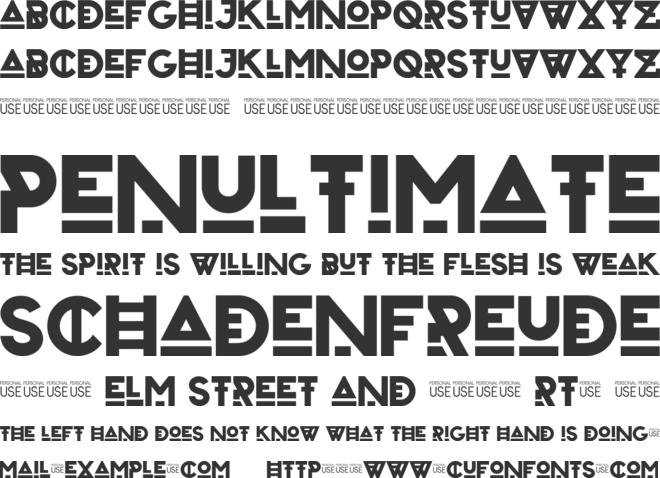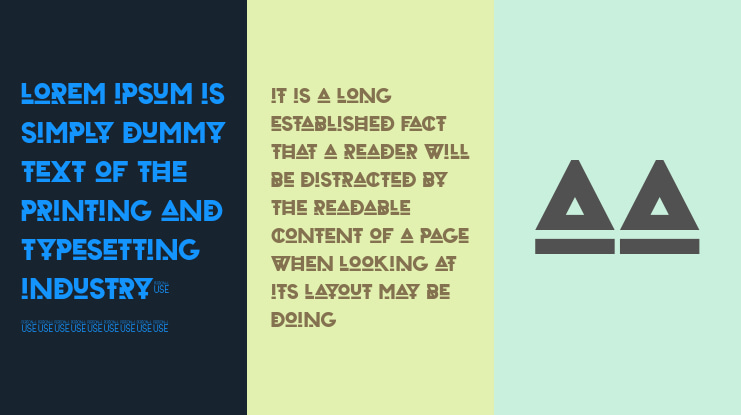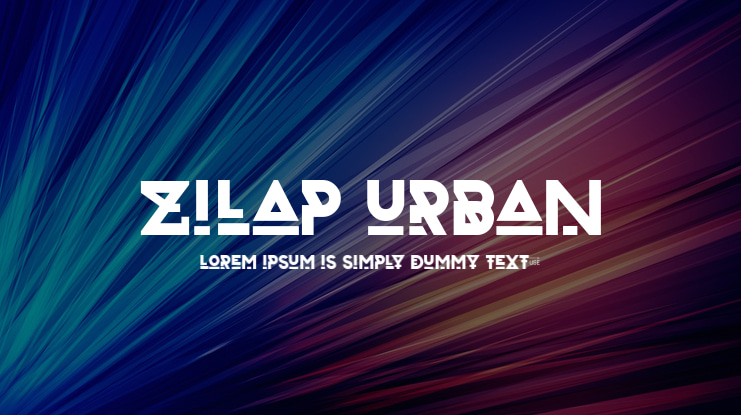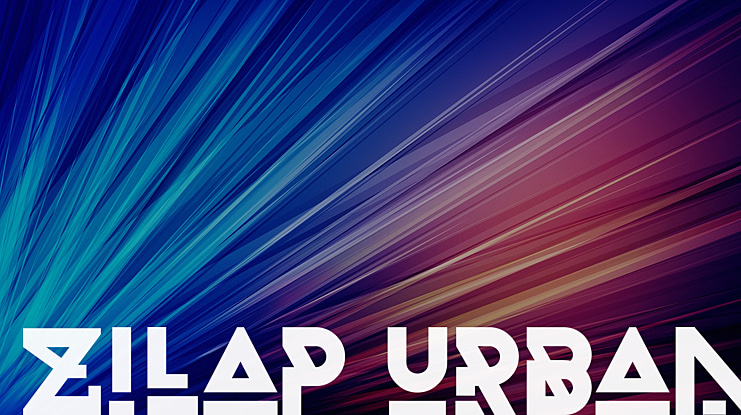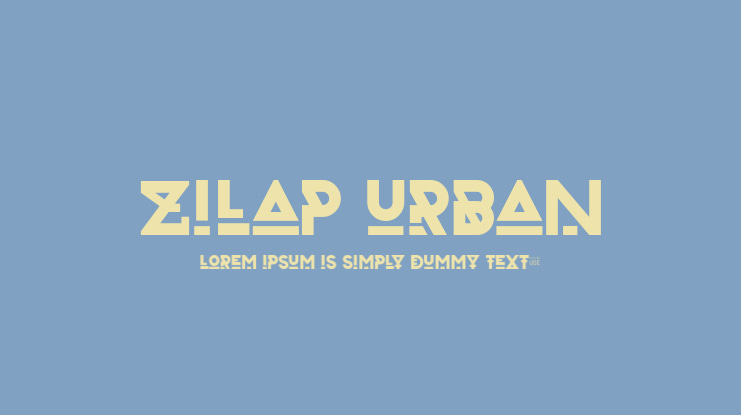
Zilap Urban Font
ZILAP Studio. Designer fonts with urban, futuristic, geometric concepts cultural and commercial licenses to use, professional, advertising and / or events.
ZILAP Estudio. Diseñador de fuentes tipográficas con conceptos urbanos, futuristas, culturales y geométricos con licencias comerciales para usos, profesionales, publicitarios y/o Eventos.